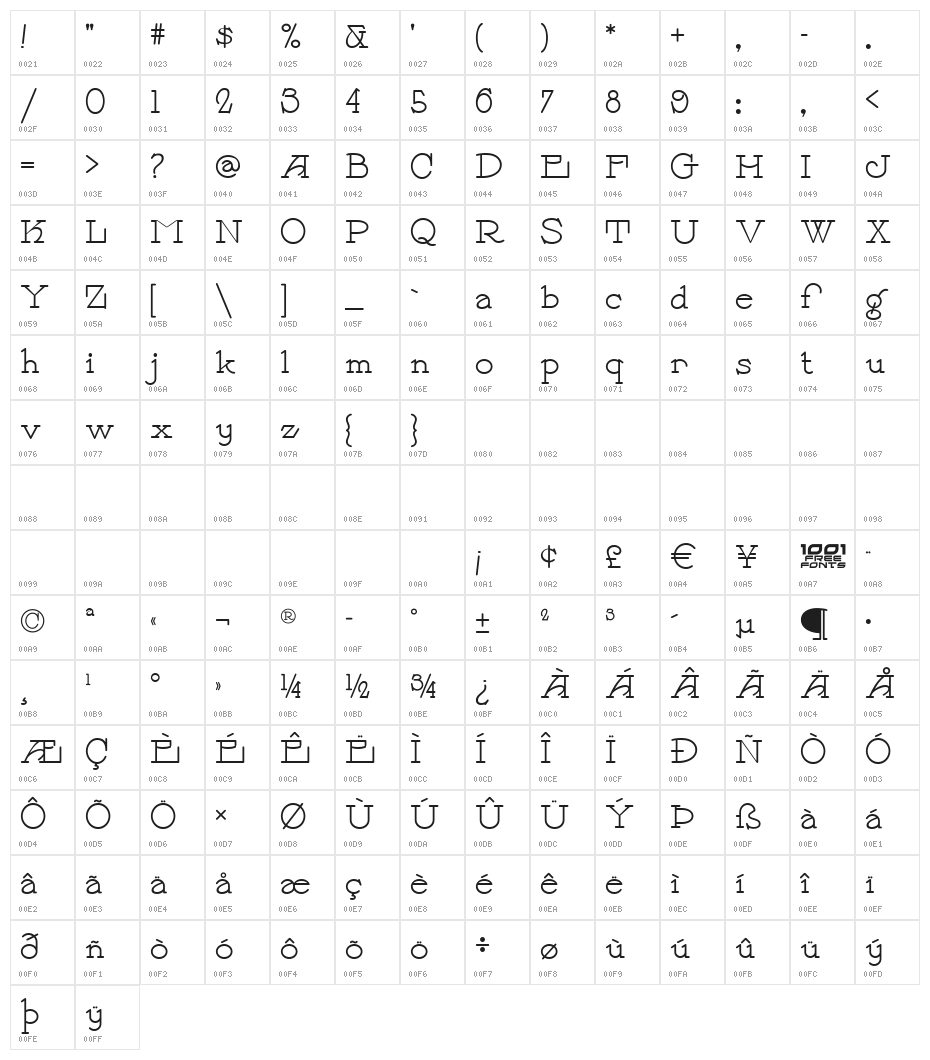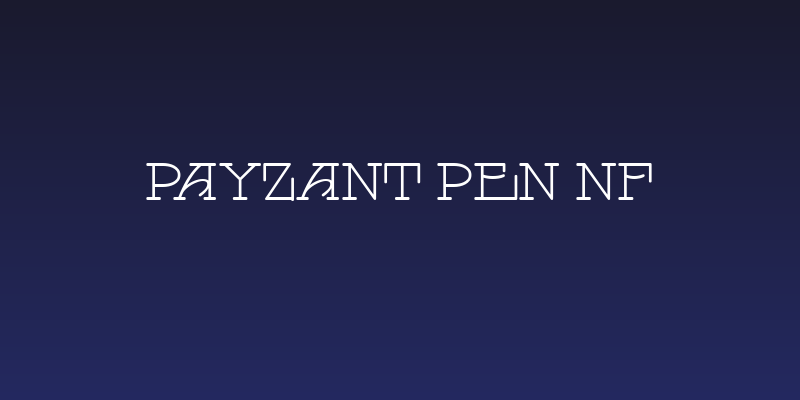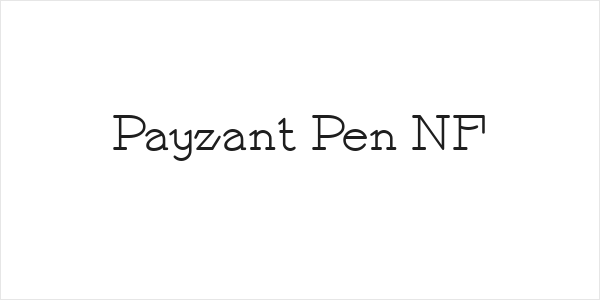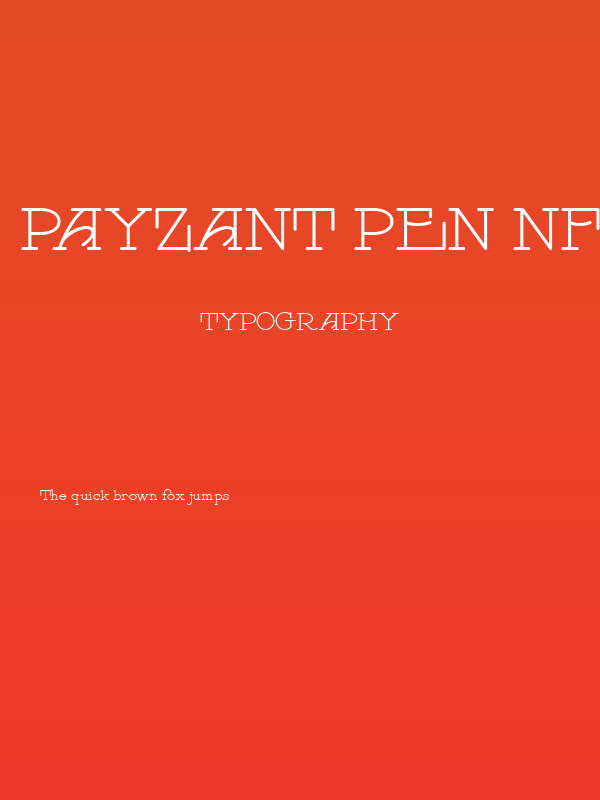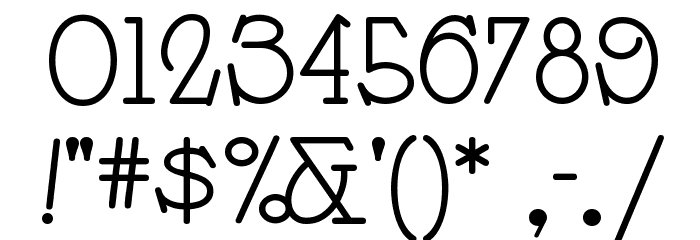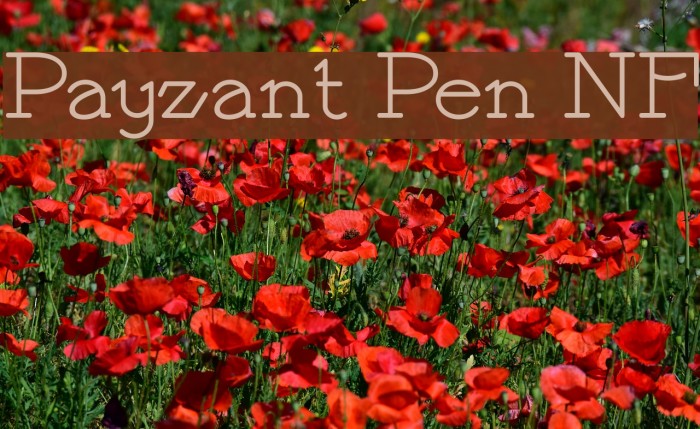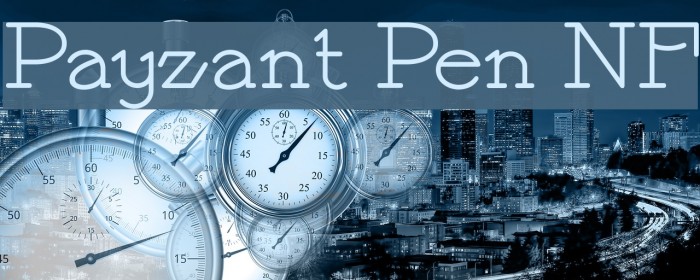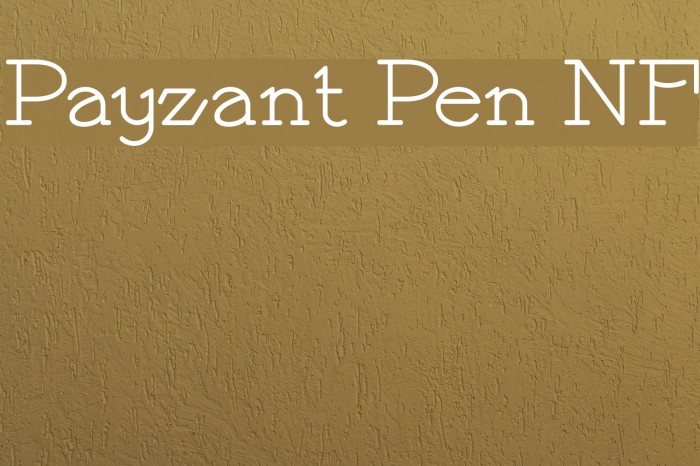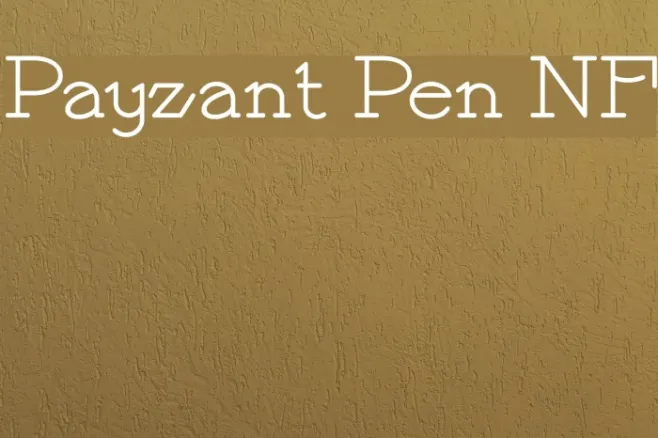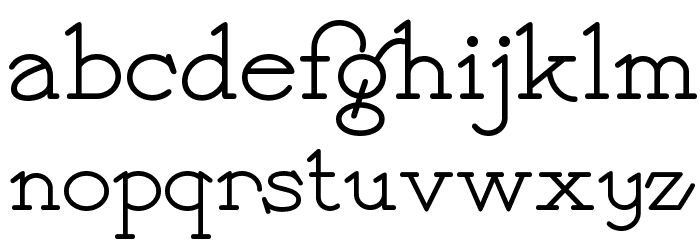
Payzant Pen NF Font
Payzant Pen NF Description
This font features a unique blend of classic and modern elements, characterized by its distinct, angular serifs and a playful, handwritten feel. The uppercase letters exhibit a strong geometric structure, while the lowercase letters maintain a more fluid and organic appearance. The numerals are bold and clear, ensuring readability. Special characters are crafted with an artistic flair, adding to the font's decorative appeal. The overall design is both elegant and approachable, making it suitable for a variety of creative applications.
| Use Case | Headlines, Logos, Artistic projects |
| Proposed Projects | Ideal for branding, invitations, posters, and artistic projects that require a touch of elegance and creativity. |